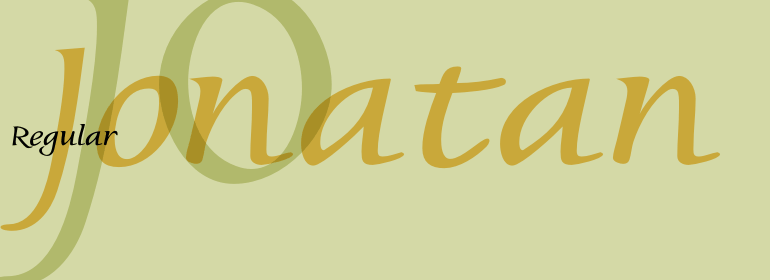
Jonatan™
3 robbers is not a typeface family, only a collective name for three typefaces with the looks of handtexted characters: Kasper, Jesper and Jonatan. There are some common traits between them, but they are three individuals. As the three terrible" robbers in the Swedish writer Lennart Hellsing's Kamomillastad - the ones who borrowed their names to the typefaces - are three individuals. They always appear in the same order: first Kasper, then Jesper and last Jonatan. Swedish children love to sing about them and are not at all scared of them.
All three robbers were released in 1995.